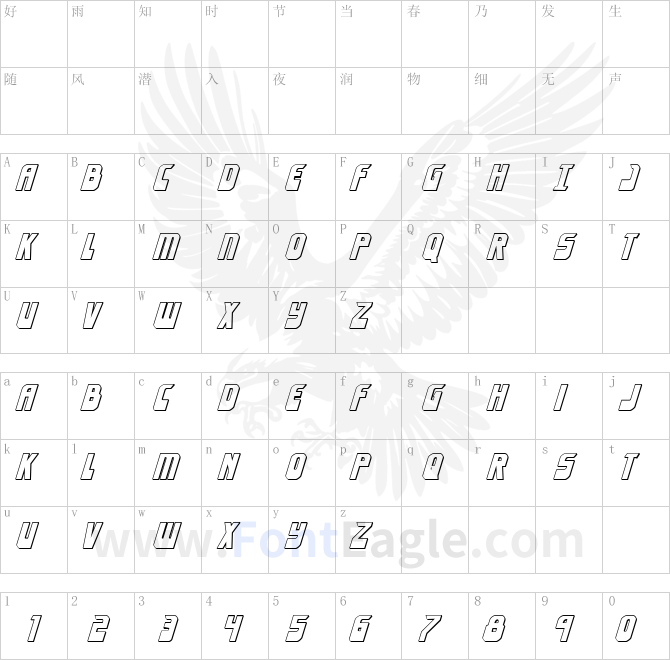
Eldebaran-3D-Italic is a great font, widely used in graphic design, single-page menu design, poster design and other fields, and is deeply loved by designers.Eldebaran-3D-Italic download.